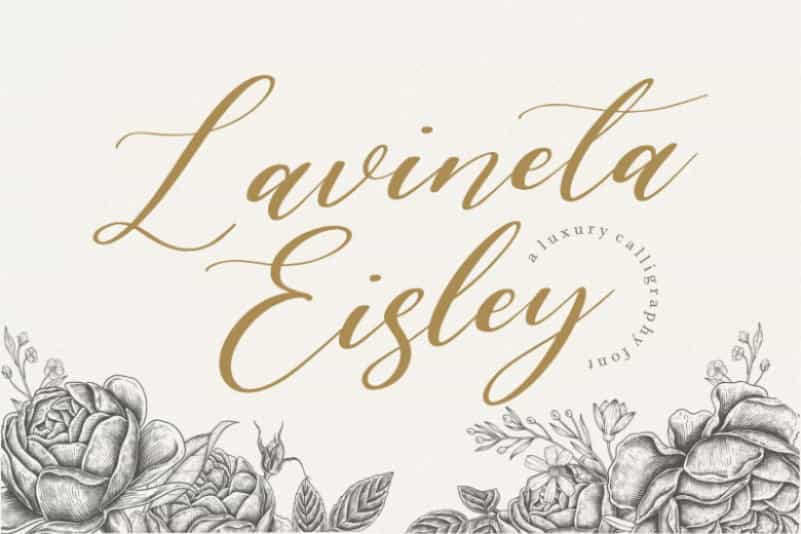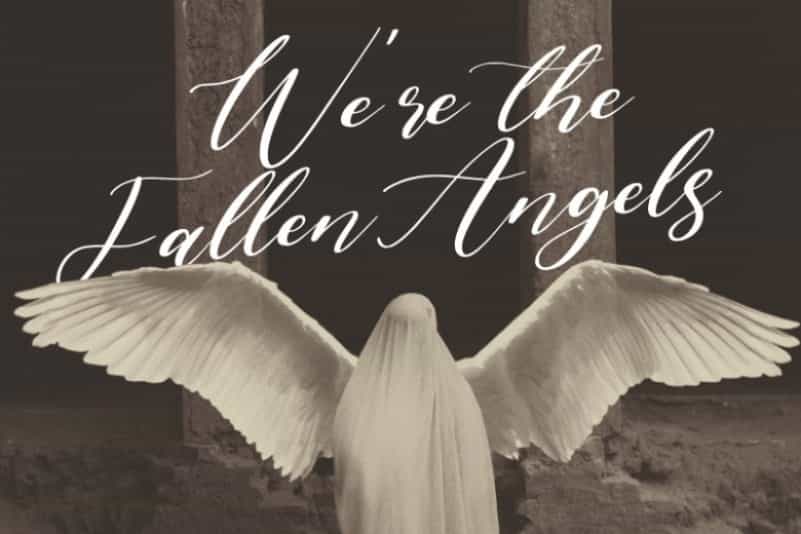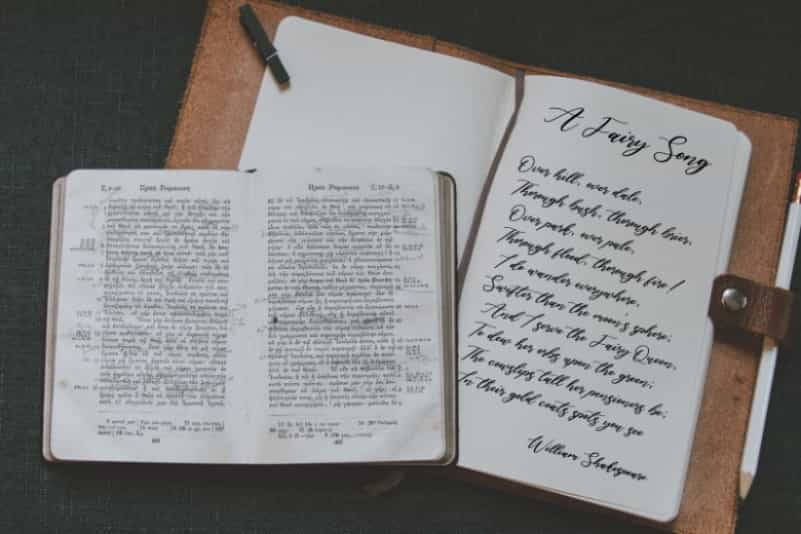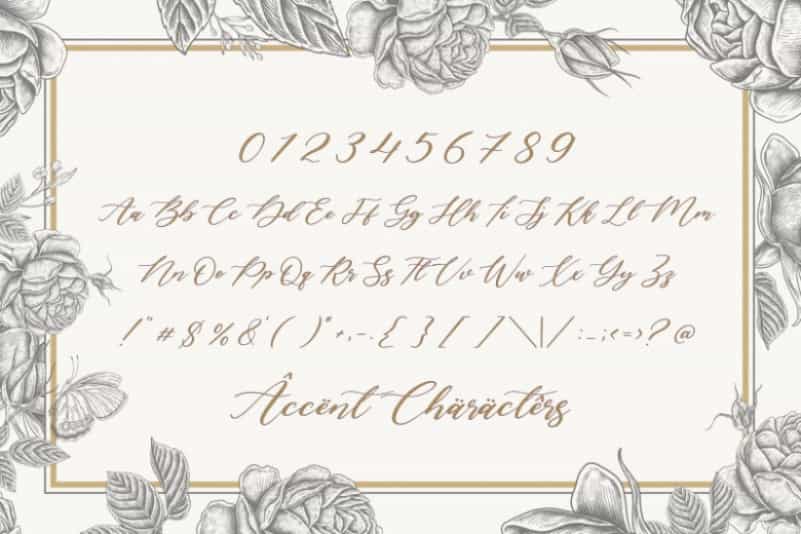
Lavineta Eisley is a calligraphy font that is classified as Luxury. It is ideal for labels, designs, logos, publications, social networks, a wedding and just to display words on a background. TTF comes with the font, and there are other features about Lavineta Eisley including that it also operates in-multilingual languages.